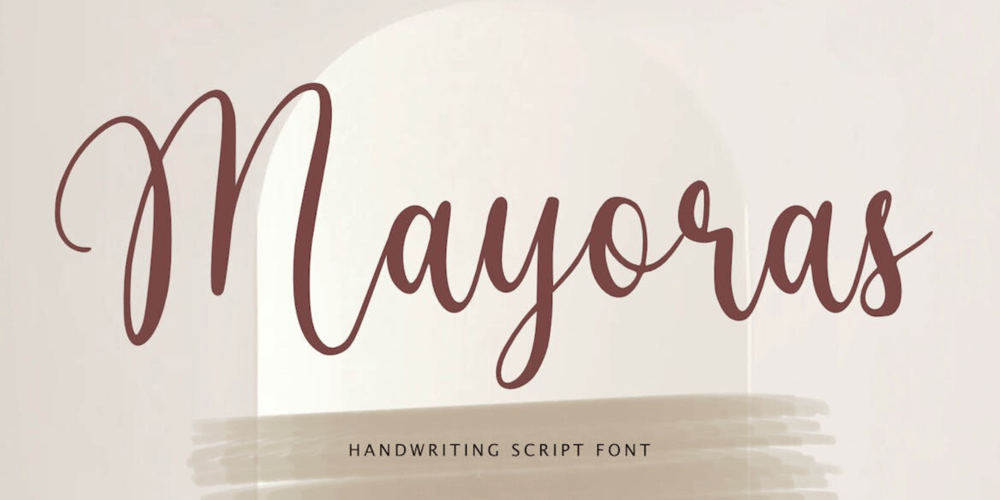
Mayoras Font Family was designed by Irpan Maulana and published by Create Big Supply. Mayoras contains 1 styles and family package options. Introducing Mayoras, a captivating handwriting script font that adds a touch of personality and charm to your creative projects. With its flowing lines and authentic handwritten feel, Mayoras brings a unique and artistic touch to any design.Whether you’re working on invitations, logos, packaging, or any other creative endeavor, Mayoras offers a versatile and expressive solution. The font features a seamless combination of uppercase and lowercase letters, providing you with a wide range of design possibilities.With its extensive character set, Mayoras includes numbers, punctuations, and multilingual support, enabling you to communicate your message effectively across different languages and cultures. The font also incorporates ligatures, enhancing the natural flow and connectivity of the letterforms, adding an elegant touch to your typography.Mayoras is crafted with PUA (Private Use Area) Encoding, allowing you to access special characters and alternate glyphs effortlessly. This feature-rich font empowers you to create unique and captivating designs that stand out from the crowd.Explore the world of Mayoras at MyFont and unleash your creativity with this captivating handwriting script font. Download Mayoras today and add a personal and artistic touch to your next project.